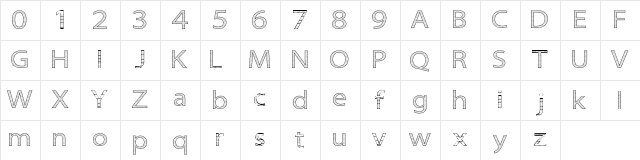
Seni Pop Regular
Foundry: cenz qobbal
Designer: cenz qobbal
Design Context for Seni Pop
Seni Pop is a composed and adaptable typeface that performs quietly and consistently across a wide range of design contexts.